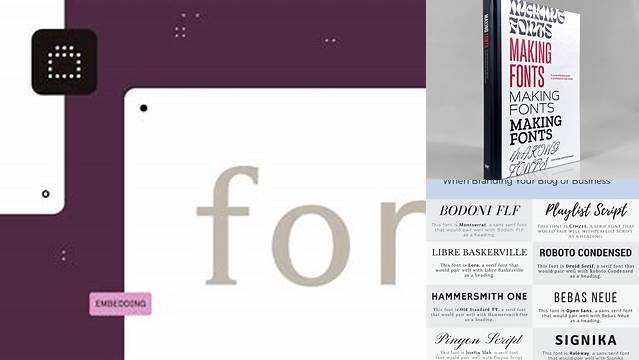
Choosing The Right Fonts For Text: A Comprehensive Guide
Choosing the right fonts for text can dramatically impact how your message is received. Whether you're designing a website, creating marketing materials, or simply writing a document, the font you select plays a crucial role in readability, aesthetics, and overall brand identity. In this comprehensive guide, we'll delve into the world of fonts, exploring various types, their characteristics, and how to choose the perfect font for your specific needs. So, let's dive in and explore the fascinating world of typography!
Understanding Font Families
Before we get into specific font choices, it's essential to understand the basic font families. These families categorize fonts based on their shared design characteristics, and knowing them will help you navigate the vast sea of typefaces more effectively. The two primary font families are serif and sans-serif, with several subcategories within each. Each font family evokes a distinct feeling and is suited for different applications.
Serif Fonts: The Traditional Choice
Serif fonts are characterized by the small decorative strokes, or serifs, that extend from the ends of the letters. Think of fonts like Times New Roman, Garamond, and Georgia ā these are the classics. Serif fonts are often associated with tradition, authority, and elegance. They're commonly used in print materials such as books, newspapers, and magazines because the serifs help guide the reader's eye across the page, improving readability in long blocks of text. For example, Times New Roman, a quintessential serif font, has been a staple in publishing for decades, lending a sense of formality and gravitas to the printed word. Similarly, Garamond, with its elegant curves and refined serifs, is often favored for literary works and academic publications, conveying a sense of sophistication and timelessness. Georgia, another popular serif font, is designed for on-screen readability, making it a versatile choice for both print and digital media. When you choose a serif font, you're making a statement about your brand's commitment to quality, reliability, and respect for tradition. The subtle serifs add a touch of class, making the text feel more polished and professional. But remember, not all serif fonts are created equal. Some are more ornate and decorative, while others are clean and understated. Consider the specific message you want to convey and choose a serif font that aligns with your brand's personality and values.
Sans-Serif Fonts: Modern and Minimalist
Sans-serif fonts, on the other hand, lack these serifs. They have a cleaner, more minimalist appearance and are often associated with modernity, simplicity, and clarity. Popular sans-serif fonts include Arial, Helvetica, and Open Sans. These fonts are widely used in digital media, such as websites and user interfaces, because they tend to be more readable on screens. The clean lines of sans-serif fonts make them ideal for headlines, captions, and short blocks of text, where quick readability is crucial. For example, Arial, a ubiquitous sans-serif font, is known for its versatility and clarity, making it a go-to choice for both web and print applications. Helvetica, with its neutral and balanced design, is another popular option for corporate branding and signage, conveying a sense of professionalism and efficiency. Open Sans, a humanist sans-serif font, is designed for optimal readability across various screen sizes, making it a favorite among web designers. When you opt for a sans-serif font, you're signaling that your brand is forward-thinking, contemporary, and approachable. The absence of serifs creates a sense of openness and modernity, making the text feel less formal and more accessible. Sans-serif fonts are perfect for brands that want to project an image of innovation, dynamism, and a commitment to clear communication. However, just like serif fonts, sans-serif fonts come in a wide range of styles and weights. Some are bold and assertive, while others are light and airy. Choose a sans-serif font that not only looks good but also aligns with your brand's message and target audience.
Other Font Families
Beyond serif and sans-serif, there are other font families to consider, such as script, monospace, and decorative fonts. Script fonts mimic handwriting and add a touch of elegance or personality. Monospace fonts, where each character takes up the same amount of horizontal space, are often used in coding and technical documents. Decorative fonts are highly stylized and can be used for eye-catching headlines or logos, but they should be used sparingly to avoid overwhelming the reader. These font families offer a broader range of stylistic options, allowing you to add unique flair and personality to your designs. For instance, script fonts, with their flowing lines and calligraphic flourishes, can evoke feelings of romance, sophistication, or nostalgia, making them ideal for wedding invitations, greeting cards, and other special occasions. Monospace fonts, while primarily used in technical contexts, can also create a retro or industrial vibe in design projects. Decorative fonts, with their bold and expressive designs, can capture attention and create a strong visual impact. However, it's crucial to use these fonts judiciously, as overusing them can lead to visual clutter and detract from the overall message. When exploring these alternative font families, consider the context and purpose of your design. Script fonts are perfect for adding a personal touch, monospace fonts for technical precision, and decorative fonts for making a statement. By understanding the unique characteristics of each font family, you can create designs that are both visually appealing and effective in conveying your message.
Key Font Characteristics
Choosing a font isn't just about picking a family; it's also about considering specific characteristics that contribute to readability and aesthetics. Font weight, size, spacing, and contrast all play vital roles in how your text is perceived.
Font Weight: Boldness and Emphasis
Font weight refers to the thickness of the characters. Common weights include light, regular, bold, and black. Font weight can be used to create emphasis and visual hierarchy within your text. For example, using bold text for headings and subheadings helps readers quickly scan the content and understand its structure. Font weight is a powerful tool for guiding the reader's eye and highlighting key information. A heavier font weight draws attention, making it perfect for headings, call-to-actions, and other elements that need to stand out. A lighter font weight, on the other hand, can create a sense of delicacy and refinement, making it suitable for body text or captions. When choosing a font weight, consider the overall tone and message of your design. A bold font weight can convey strength and confidence, while a lighter font weight can evoke feelings of elegance and subtlety. Experiment with different font weights to see how they impact the visual hierarchy and readability of your text. Too much bold text can be overwhelming, while too little can make your design feel flat and uninspired. Finding the right balance is key to creating a visually engaging and effective design.
Font Size: Legibility and Readability
Font size is another crucial factor in readability. The appropriate size depends on the context. Body text should be large enough to read comfortably, while headlines can be larger to grab attention. It's important to ensure that your font size is consistent throughout your design to maintain a professional and polished look. Font size directly impacts the legibility and readability of your text. A font that's too small can strain the reader's eyes, while a font that's too large can appear overwhelming and unprofessional. The ideal font size depends on various factors, including the font family, the medium (print or digital), and the target audience. For body text, a font size of 10-12 points is generally considered optimal for print, while 16-18 pixels is recommended for web. Headlines, on the other hand, can be larger, ranging from 18 points for subheadings to 36 points or more for main headings. When choosing a font size, consider the viewing distance and the amount of text on the page. Longer blocks of text require a slightly larger font size to maintain readability. Also, remember that different font families can appear to have different sizes, even at the same point size. Some fonts are naturally taller or wider than others, so it's essential to test your font choices in context to ensure optimal legibility. Consistency in font size is also crucial for creating a cohesive and professional design. Use a consistent hierarchy of font sizes to guide the reader's eye and create a clear visual structure.
Spacing: Kerning, Tracking, and Leading
Spacing refers to the space between letters, words, and lines of text. Kerning adjusts the space between individual letters, tracking adjusts the overall spacing between letters in a word or block of text, and leading (line-height) adjusts the space between lines of text. Proper spacing is essential for readability and visual appeal. Too little spacing can make text look cramped and difficult to read, while too much spacing can make it feel disconnected. Spacing plays a critical role in the overall readability and visual harmony of your text. Kerning, tracking, and leading are the three main components of spacing that designers need to consider. Kerning involves adjusting the space between individual letter pairs to create a more balanced and visually pleasing appearance. For example, the space between the letters āAā and āVā often needs to be reduced to prevent them from appearing too far apart. Tracking, also known as letter-spacing, adjusts the overall spacing between letters in a word or block of text. Increasing tracking can make text feel more open and airy, while decreasing it can make it feel more compact and dense. Leading, or line-height, adjusts the space between lines of text. Proper leading is crucial for readability, especially in long blocks of text. Insufficient leading can make lines of text appear to run together, while excessive leading can create a disconnected and disjointed appearance. When adjusting spacing, it's essential to consider the font family, font size, and the overall design context. Some fonts require more kerning than others, and the optimal tracking and leading can vary depending on the length and density of the text. Experiment with different spacing settings to find the perfect balance that enhances readability and visual appeal. Remember, subtle adjustments in spacing can make a significant difference in the overall quality of your design.
Contrast: Distinguishing Text from Background
Contrast refers to the difference in color between the text and the background. Sufficient contrast is crucial for readability, especially for users with visual impairments. Dark text on a light background (or vice versa) generally provides the best contrast. Avoid using colors that are too similar, as this can make the text difficult to read. Contrast is a fundamental principle of design that ensures your text is easily readable and visually accessible. Sufficient contrast between the text and the background is essential for preventing eye strain and improving comprehension. The most common and effective contrast combination is dark text on a light background or vice versa. This provides a clear visual distinction that makes the text stand out and easy to read. However, the specific colors you choose can also impact readability. For example, bright, saturated colors can be visually jarring and make it difficult to focus on the text. Muted or neutral colors, on the other hand, tend to be easier on the eyes and create a more harmonious visual experience. When choosing colors for your text and background, consider the context and the target audience. Websites and digital interfaces often benefit from high contrast to ensure readability on various screen sizes and resolutions. Print materials, on the other hand, may allow for more subtle color combinations. It's also essential to consider accessibility guidelines, such as WCAG (Web Content Accessibility Guidelines), which provide specific recommendations for contrast ratios to ensure that your content is accessible to users with visual impairments. Always test your color combinations to ensure they provide sufficient contrast and readability in different lighting conditions. Poor contrast can make your text illegible and frustrate your audience, while good contrast can enhance readability and improve the overall user experience.
Choosing the right fonts for text is a crucial aspect of design and communication. By understanding the different font families, key characteristics, and practical tips outlined in this guide, you can make informed decisions that enhance readability, aesthetics, and your overall message. Remember, the perfect font can elevate your design and leave a lasting impression on your audience. So, take your time, experiment with different options, and find the fonts that best represent your brand and vision. Happy designing, guys! Choosing fonts might seem like a small detail, but it's a detail that can make a huge difference in how your message is perceived. So, go out there and make those typography choices count!